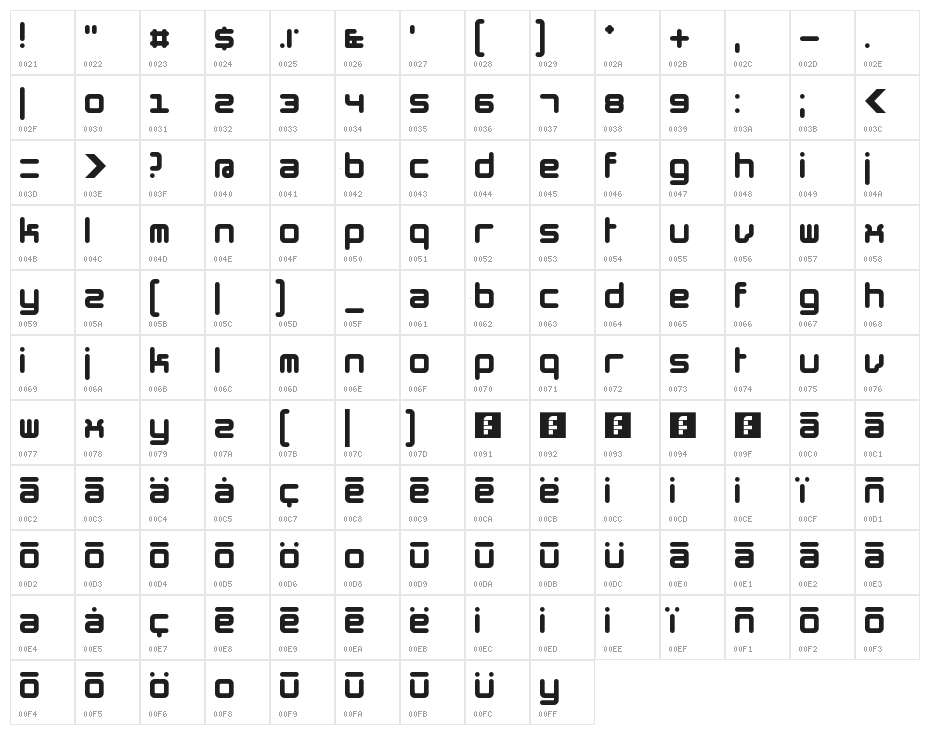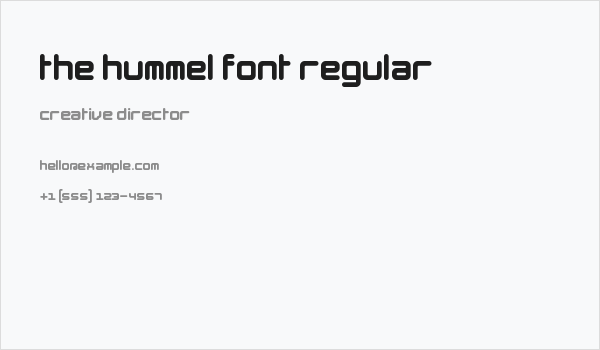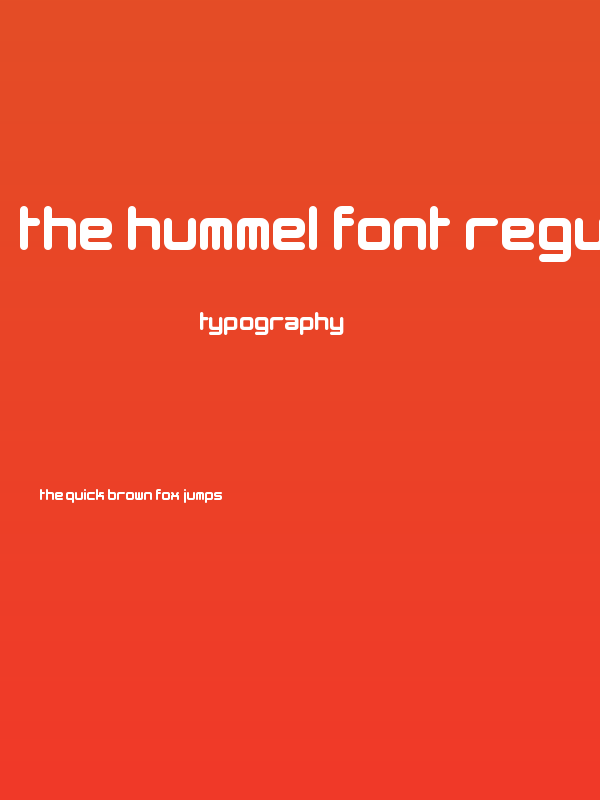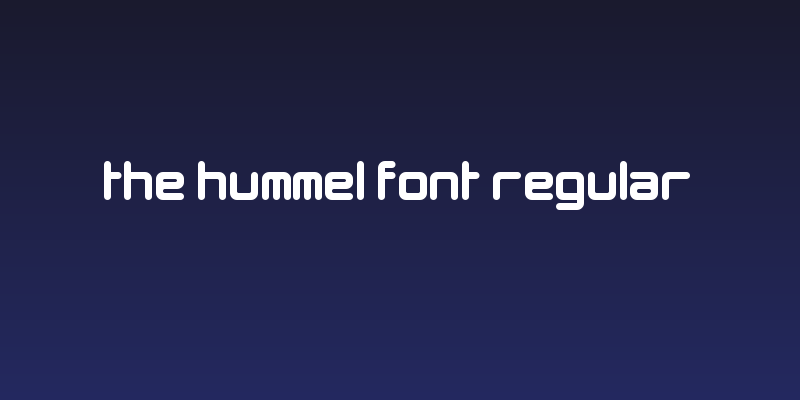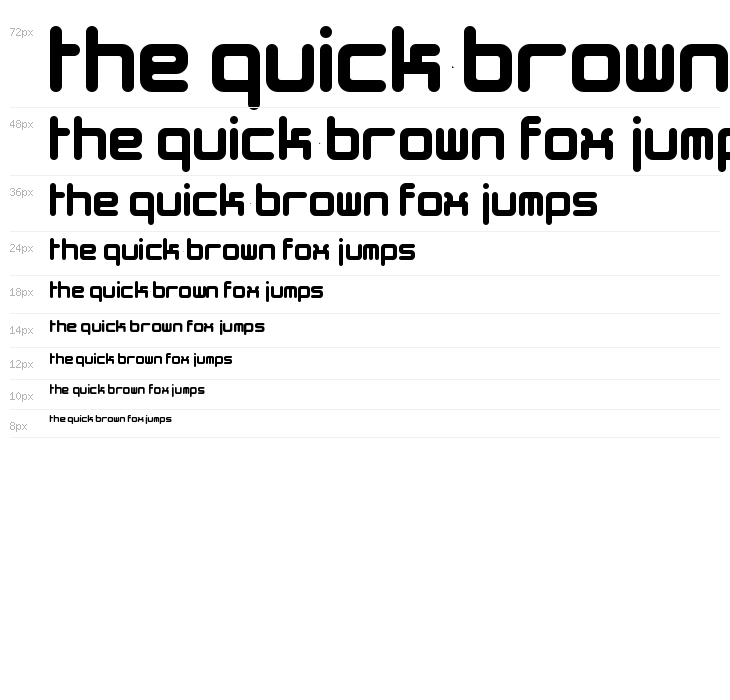
The Hummel Font Regular Font
The Hummel Font Regular Description
This font features a bold, rounded style with a modern and playful appearance. The characters are uniformly thick, creating a strong visual impact. The rounded edges give it a friendly and approachable feel, making it suitable for a variety of design projects. The font maintains a consistent weight throughout, with no significant variation in stroke thickness, which contributes to its clean and cohesive look. The spacing between characters is normal, ensuring readability while maintaining its unique style. This font is versatile and can be used in both digital and print media, offering a contemporary aesthetic that is both eye-catching and functional.
| Proposed Projects | Ideal for branding, packaging, children's books, and playful digital content. |